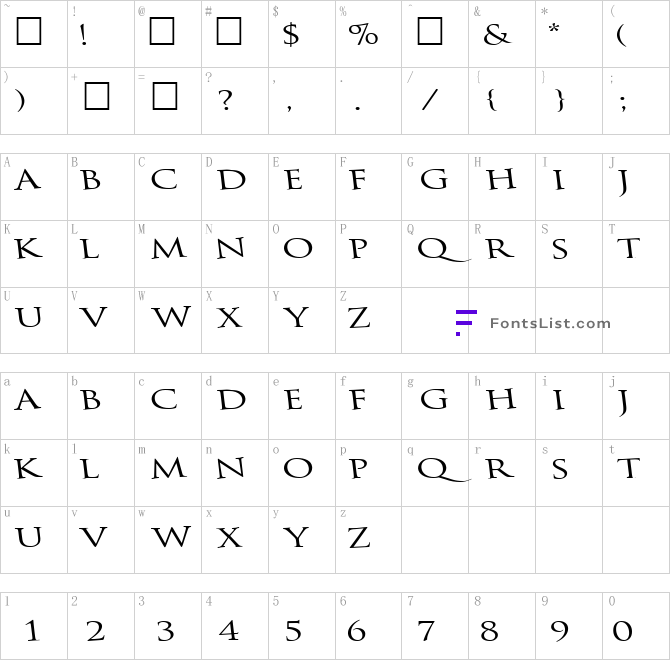
- Font Name:BathingBeauty66 ttcon
BathingBeauty66-Regular-ttcon.ttf is a very beautiful artistic font, BathingBeauty66-Regular-ttcon.ttf is widely used in the design and printing of various books and pictures,BathingBeauty66-Regular-ttcon.ttf has a strong visual impact,BathingBeauty66-Regular-ttcon.ttf is a commonly used font in newspapers, magazines and books, and is used in posters, e-commerce Poster design, store design, logo design, font design and other fields.BathingBeauty66-Regular-ttcon.